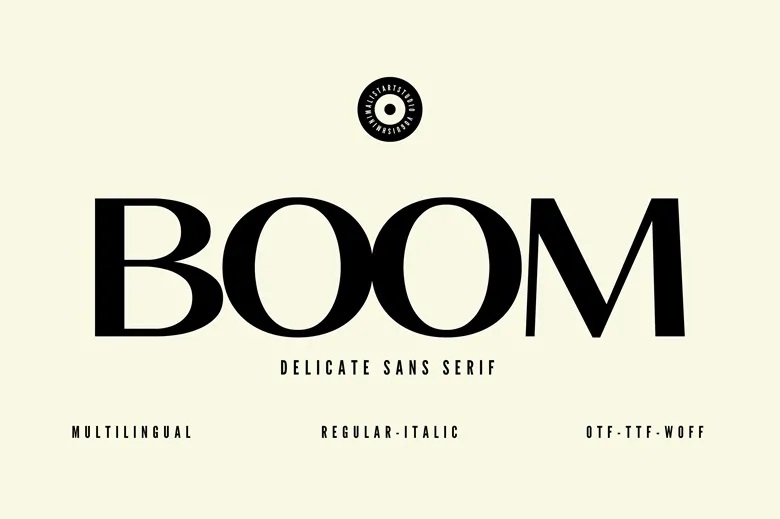
Boom Font
Boom is a lightweight and simple to use typeface which adds a sense of class to your work. Boom is incredibly bold and easy-going as it comes with clean lines and a modern look. Designed to perfection, its sharp letterforms are legible and attractive.
Take your projects to the next level with Boom, which is eternally beautiful and has the strength of outstanding typography.
Boom Sans Serif Font